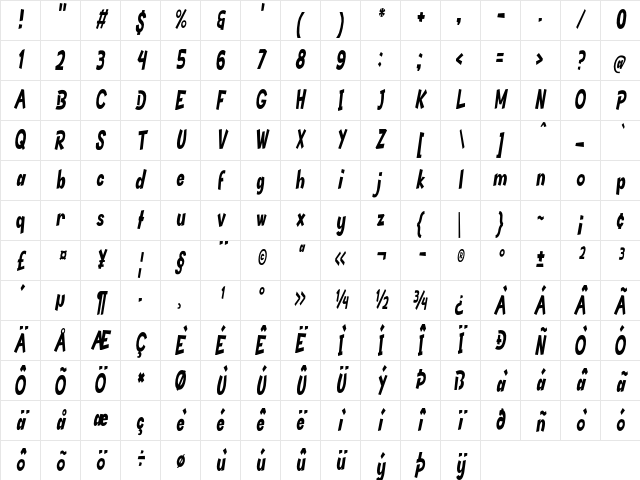
Ducklips Condensed Italic
Design Context for Ducklips
Ducklips is a composed and adaptable typeface that performs quietly and consistently across a wide range of design contexts. The slanted form adds forward momentum and visual energy. Its narrow stance lets it pack a punch even in space-constrained designs.
Pro Tip: Use Ducklips for emphasis, pull quotes, and subheadings where its slanted energy can add rhythm to the layout.